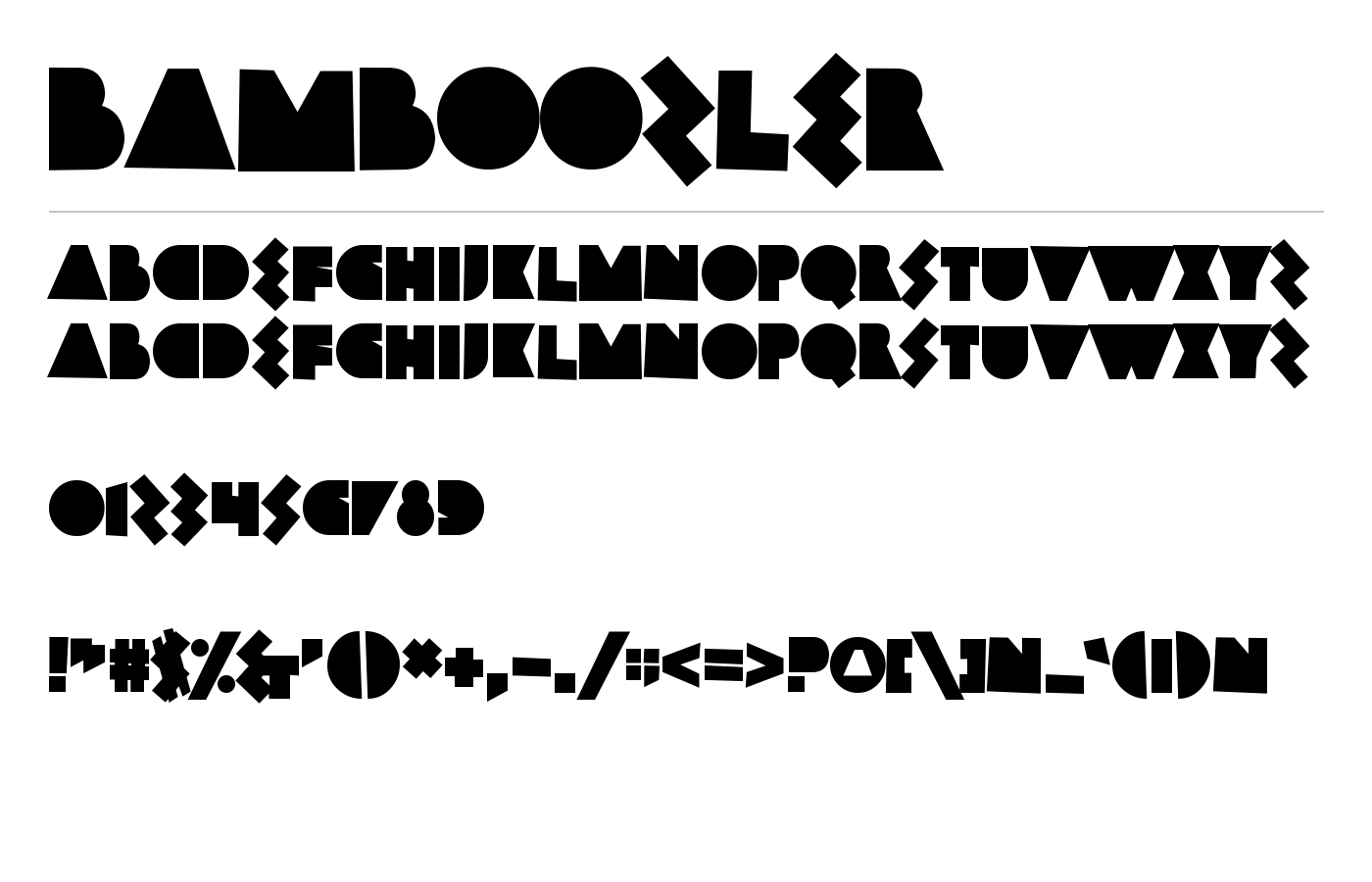
Bamboozler is a bold, geometric sans serif font characterized by its heavy weight and strong, abstract shapes that create a playful yet impactful feel. With its sharp angles, unique letterforms, and solid black filling, this font works best for eye-catching headlines, logos, and posters where a modern, artistic vibe is desired. Its quirky style makes it ideal for creative branding and display use, rather than body text.
Bamboozler Font
About Bamboozler Font
| Font family | Bamboozler Font |
| Release date | 2014-06-03 |
| Designer | Andrew McCluskey |